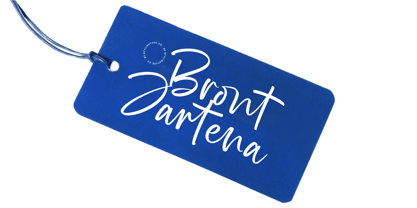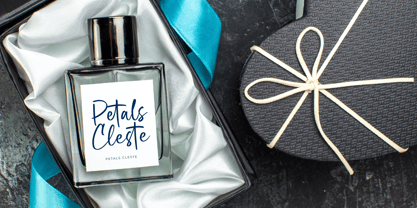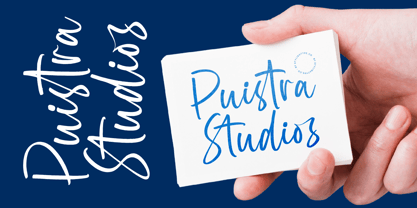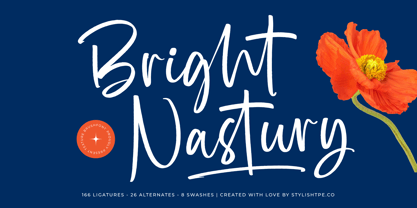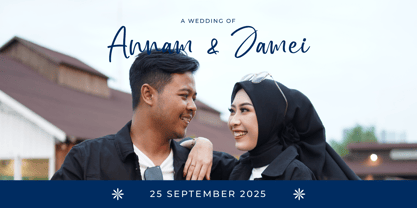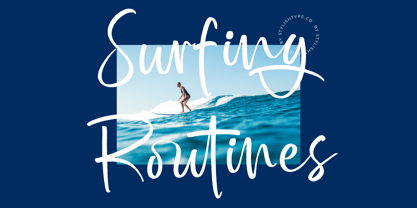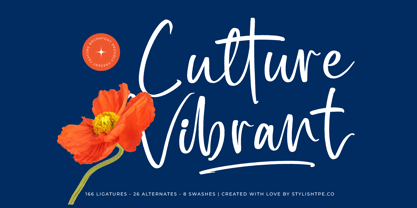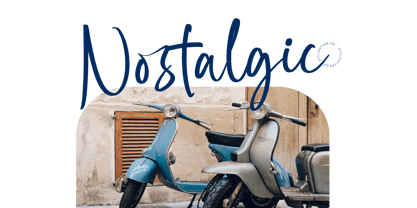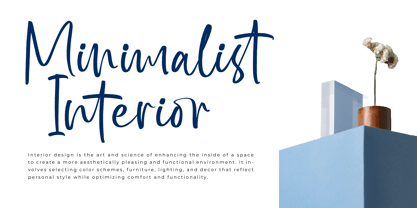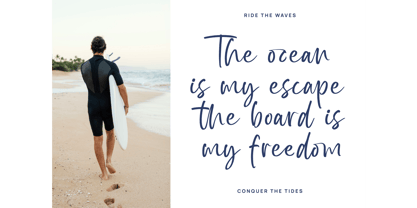
Bright Nastury
The Bright Nastury Font Family was designed by Heru Utama Putra and published by Stylishtype Studio. Bright Nastury contains 2 styles and family package options. More about this family
Bright Nastury - Texture Brush Font , from Stylishtype, Suitable for any projects such as: logos, branding projects, homeware designs, product packaging, mugs, quotes, posters, shopping bags, t-shirts, book covers, name card, invitation cards, greeting cards, label, photography, watermark, special events, and all your other luxury and beautiful projects that need a Luxury Script taste.